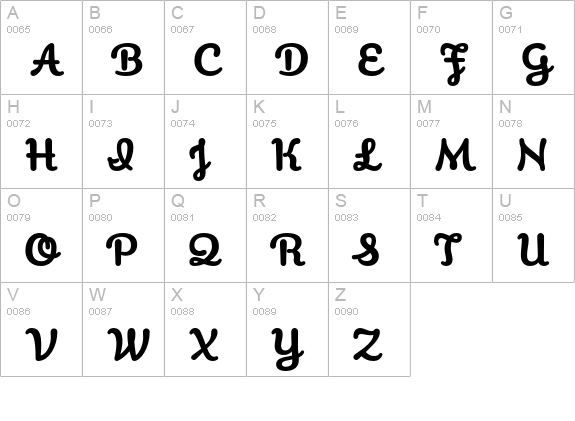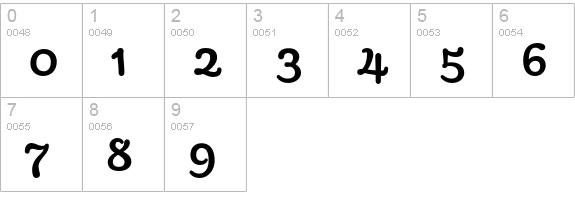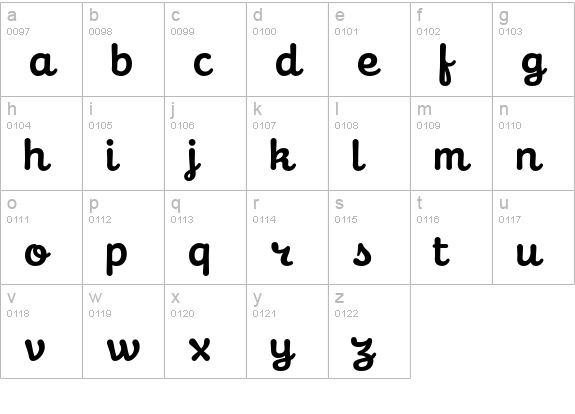
GalaxieCassiopeia-Bold Font Details
GalaxieCassiopeia-Bold is a strong, high-contrast variant in the GalaxieCassiopeia typeface family \xE2\x80\x94 well suited to headlines, attention-grabbing titles, and strong calls-to-action.
Introducing GalaxieCassiopeia-Bold, a stunning font that exudes boldness and elegance. With its intricate details and commanding presence, this typeface is perfect for making a statement in any design project. GalaxieCassiopeia-Bold is the epitome of modern sophistication. Its strong, bold lines and classic letterforms create a sense of power and authority. Whether you're designing a logo, crafting a headline, or creating a striking poster, this font will captivate your audience and leave a lasting impression. But what truly sets GalaxieCassiopeia-Bold apart is its versatility. It effortlessly transitions from formal to casual, making it suitable for a wide range of applications. From high-end fashion brands to contemporary art galleries, this font seamlessly adapts to any style or concept. And the best part? GalaxieCassiopeia-Bold is completely free! That's right, you can enhance your designs with this extraordinary typeface without spending a dime. Simply visit FontsMarket.com to freely download GalaxieCassiopeia-Bold and unlock its full potential. With its free availability, this font becomes a valuable asset for designers, artists, and creatives alike. It allows you to elevate your work without any limitations, giving you the freedom to explore your creativity and push boundaries. So don't miss out on this incredible opportunity. Download GalaxieCassiopeia-Bold today and experience the seamless blend of boldness and elegance that this font effortlessly delivers. Let it become the centerpiece of your designs, leaving a lasting impression on anyone who encounters them. Embrace the power of GalaxieCassiopeia-Bold and take your projects to new heights.